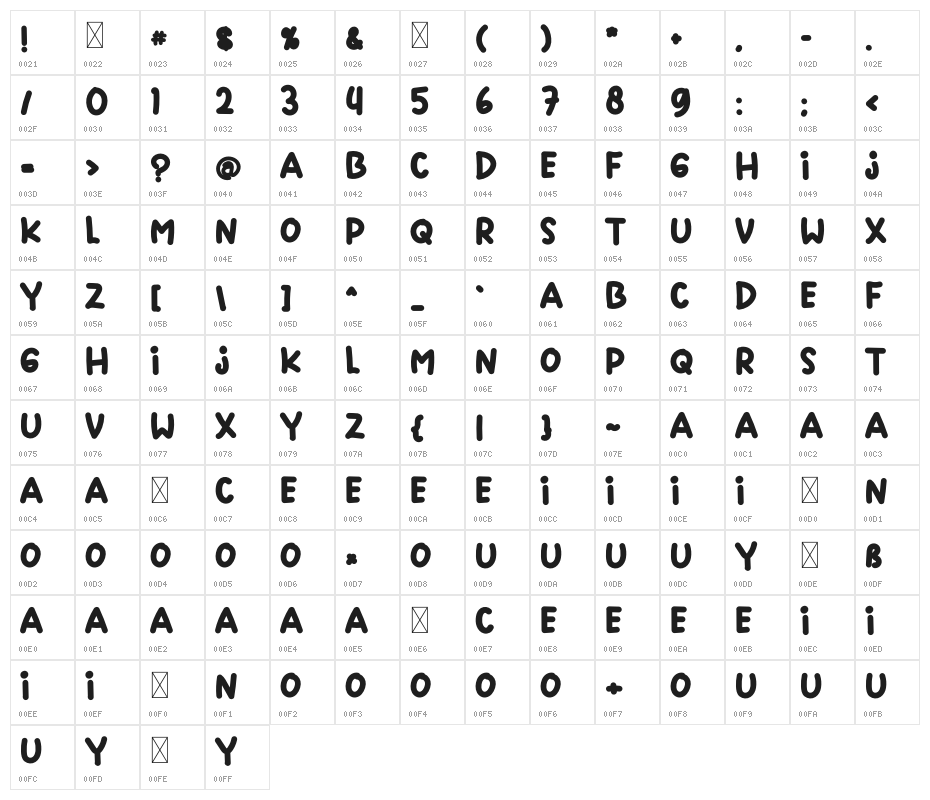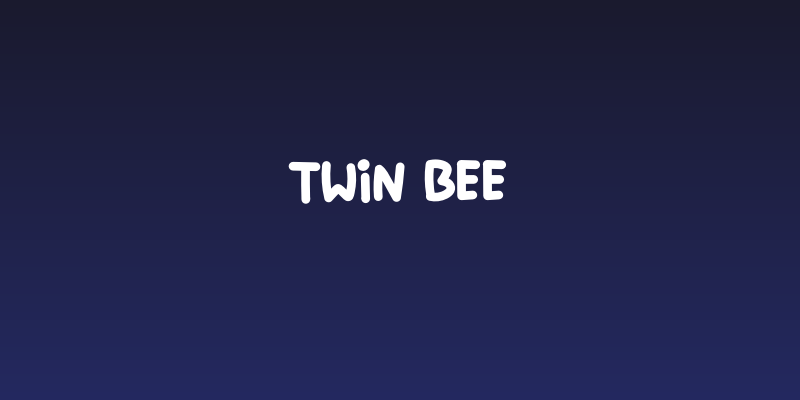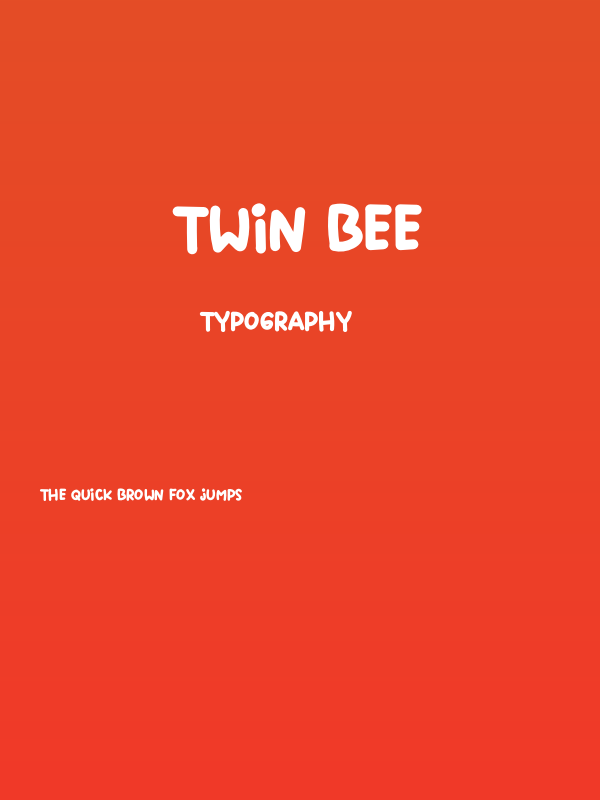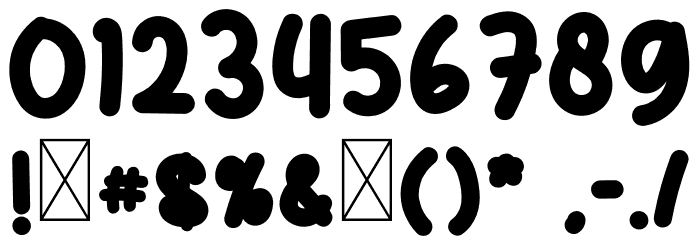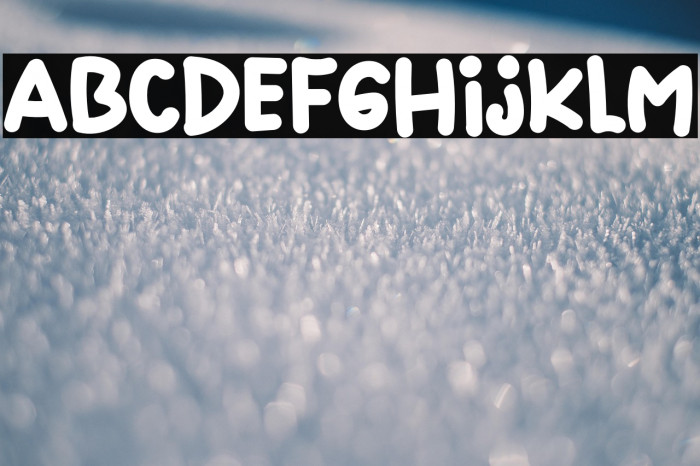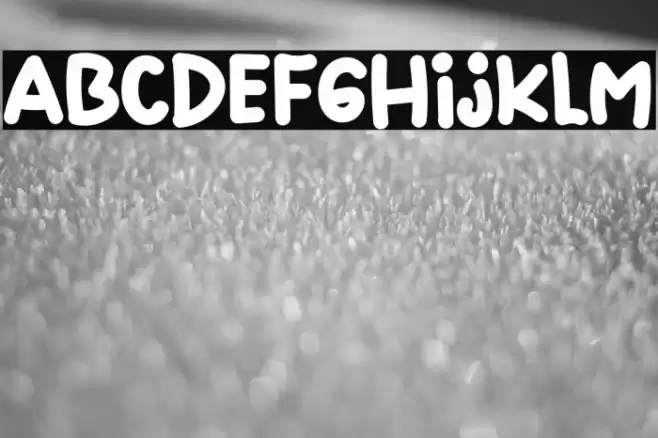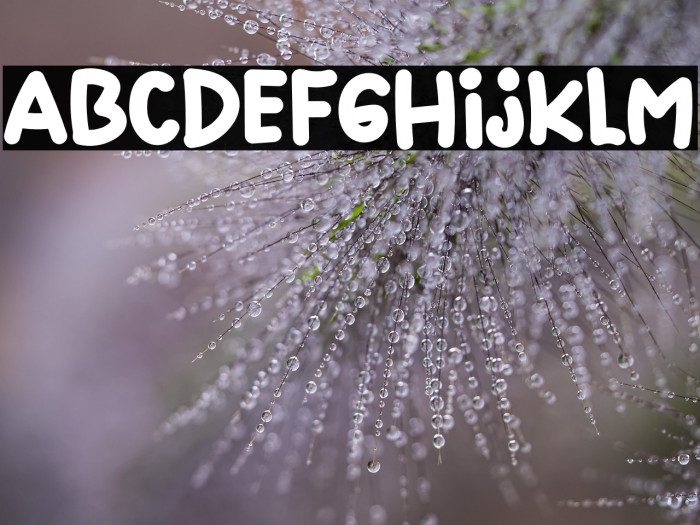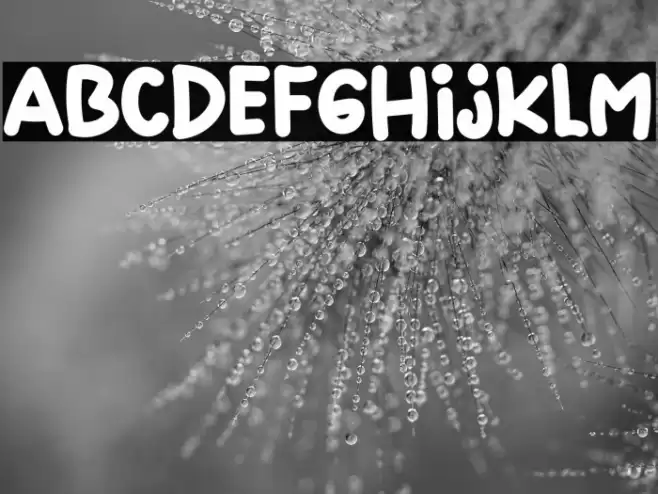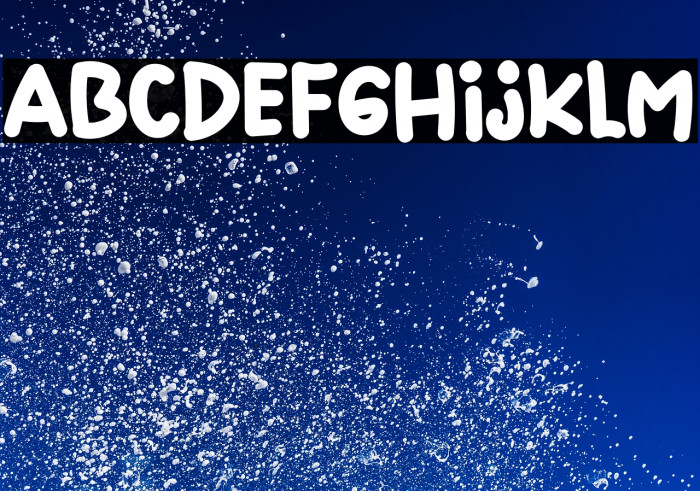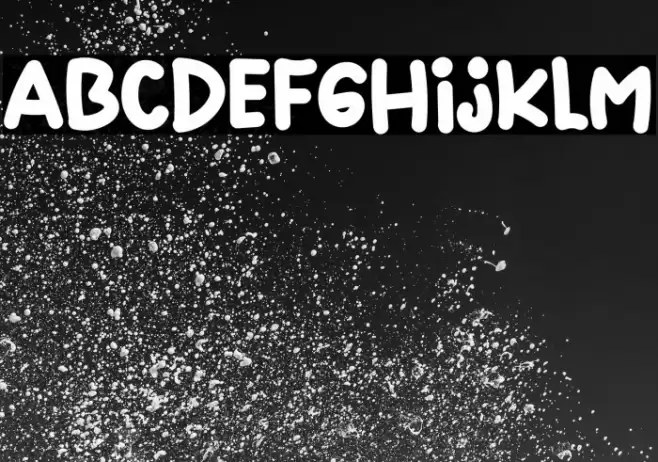
Twin Bee Font
| Style général | Playful, Whimsical |
| Projets proposés | Ideal for children's books, playful branding, casual invitations, and creative posters. |